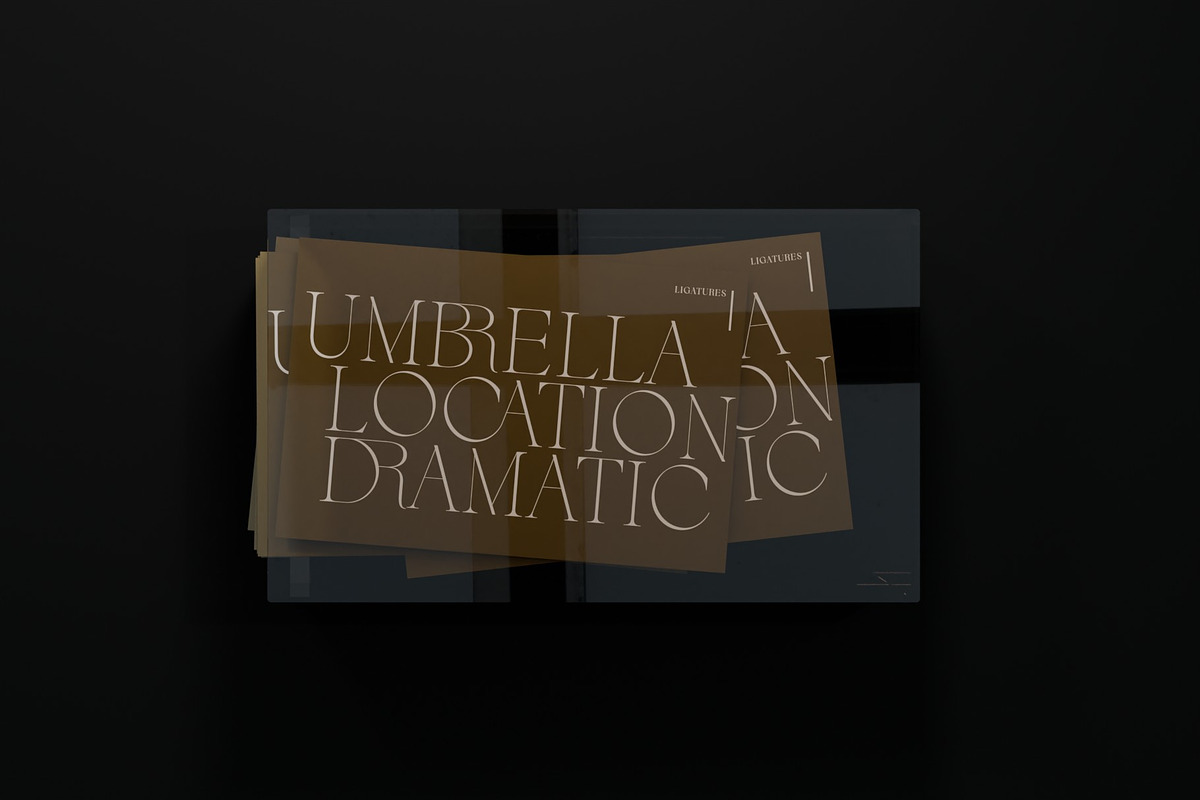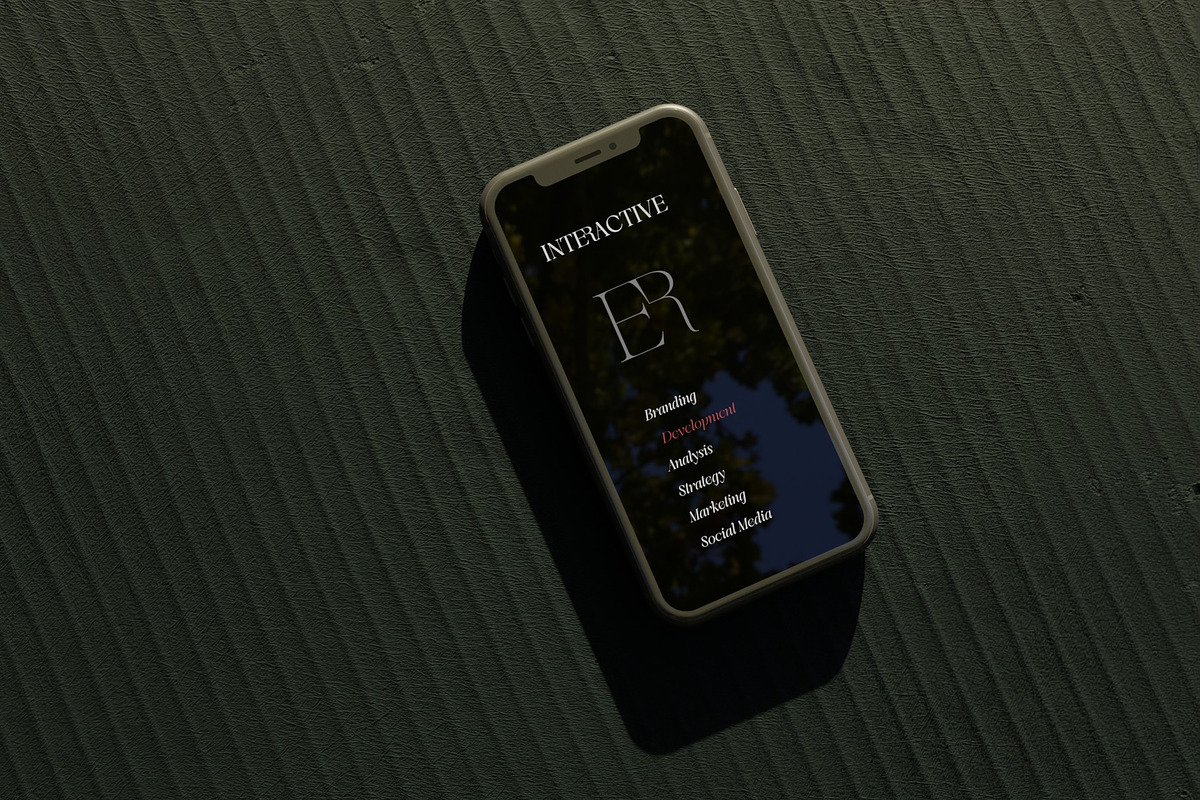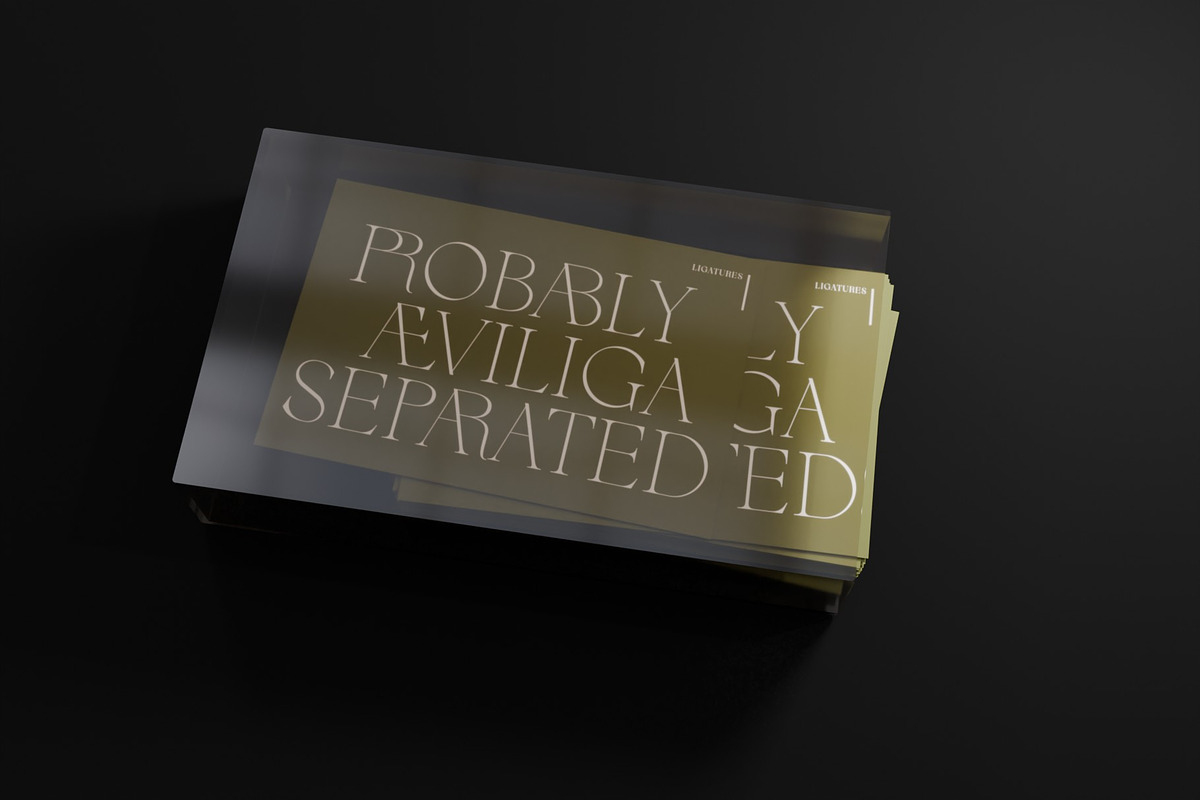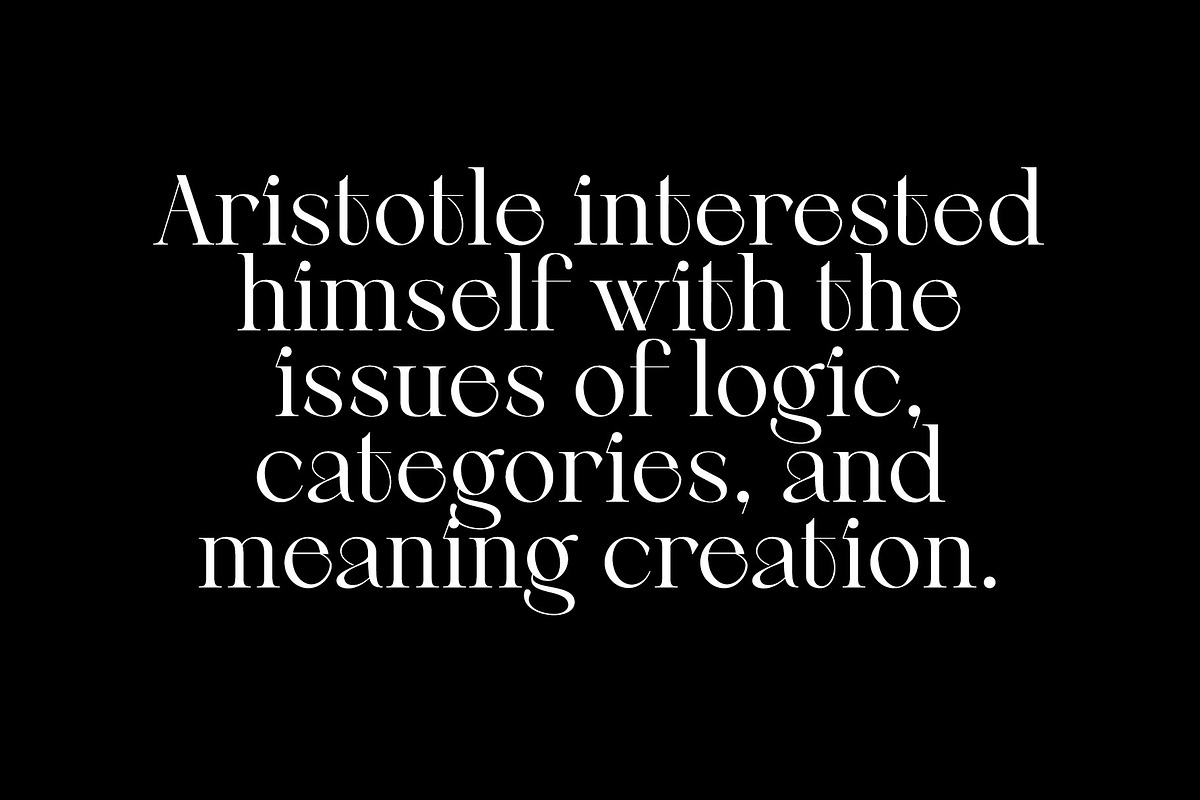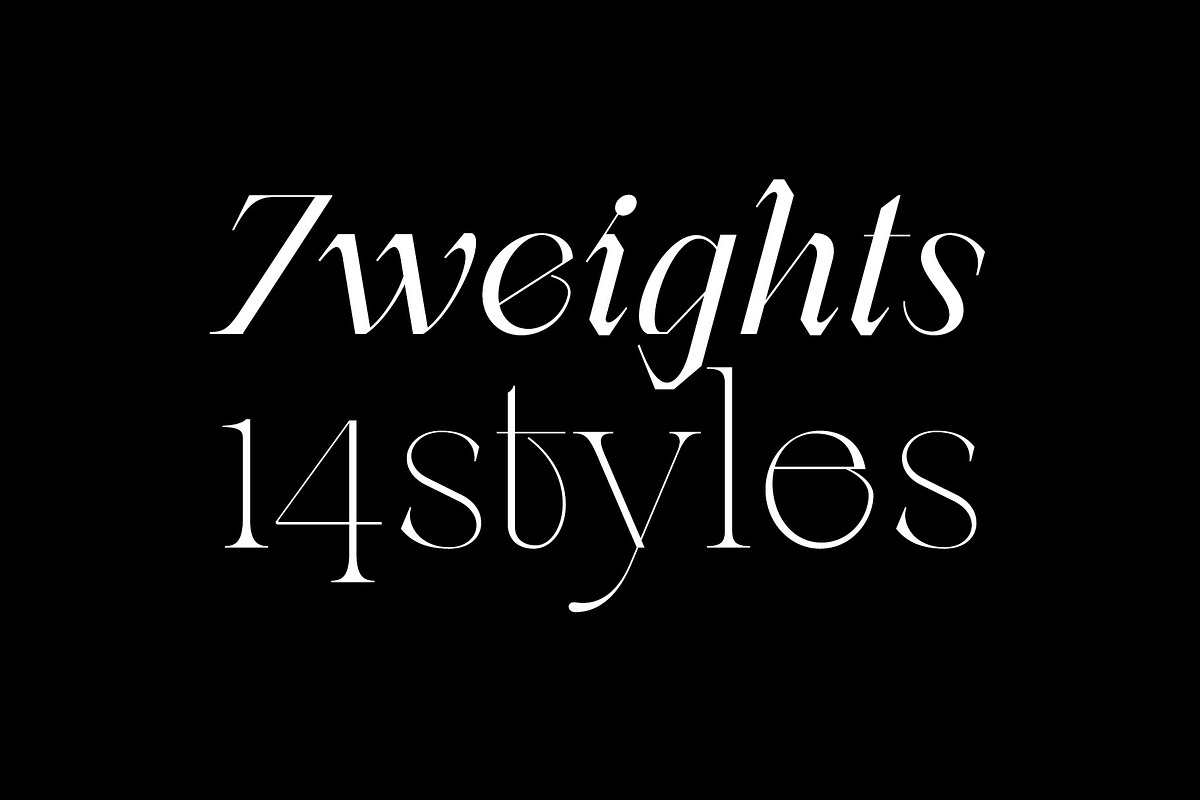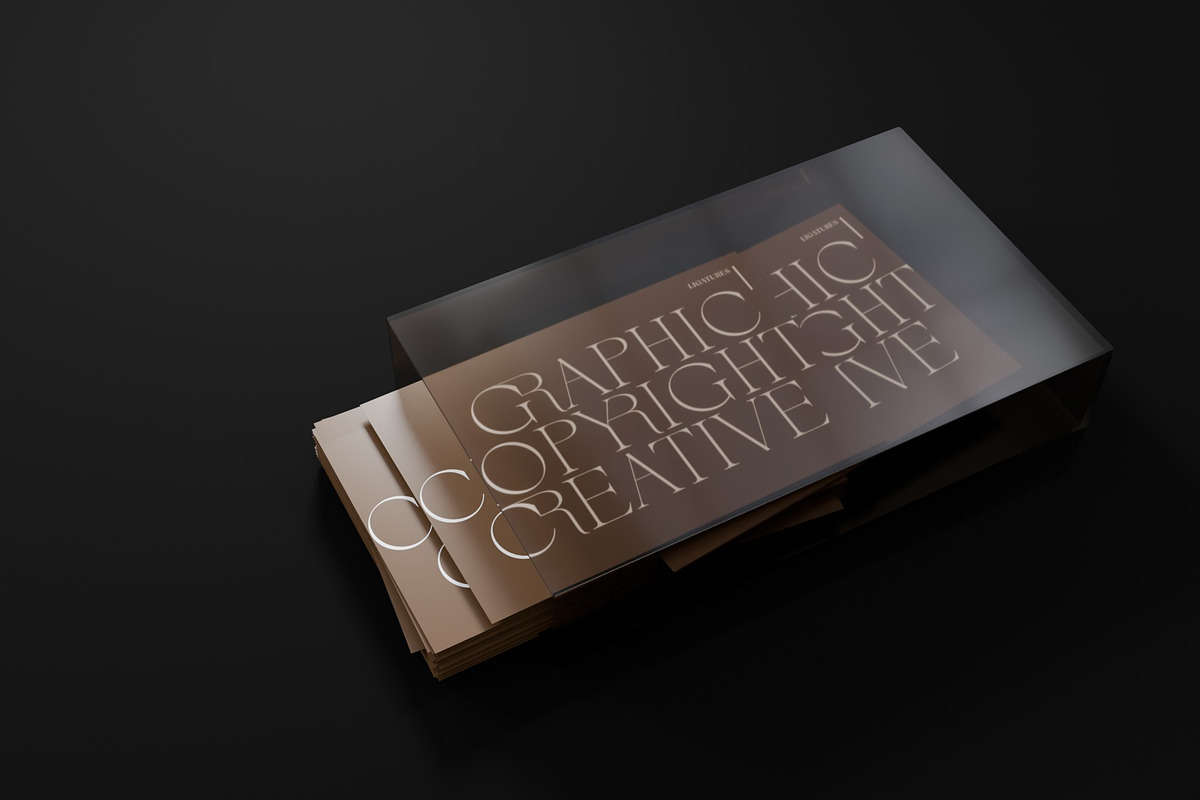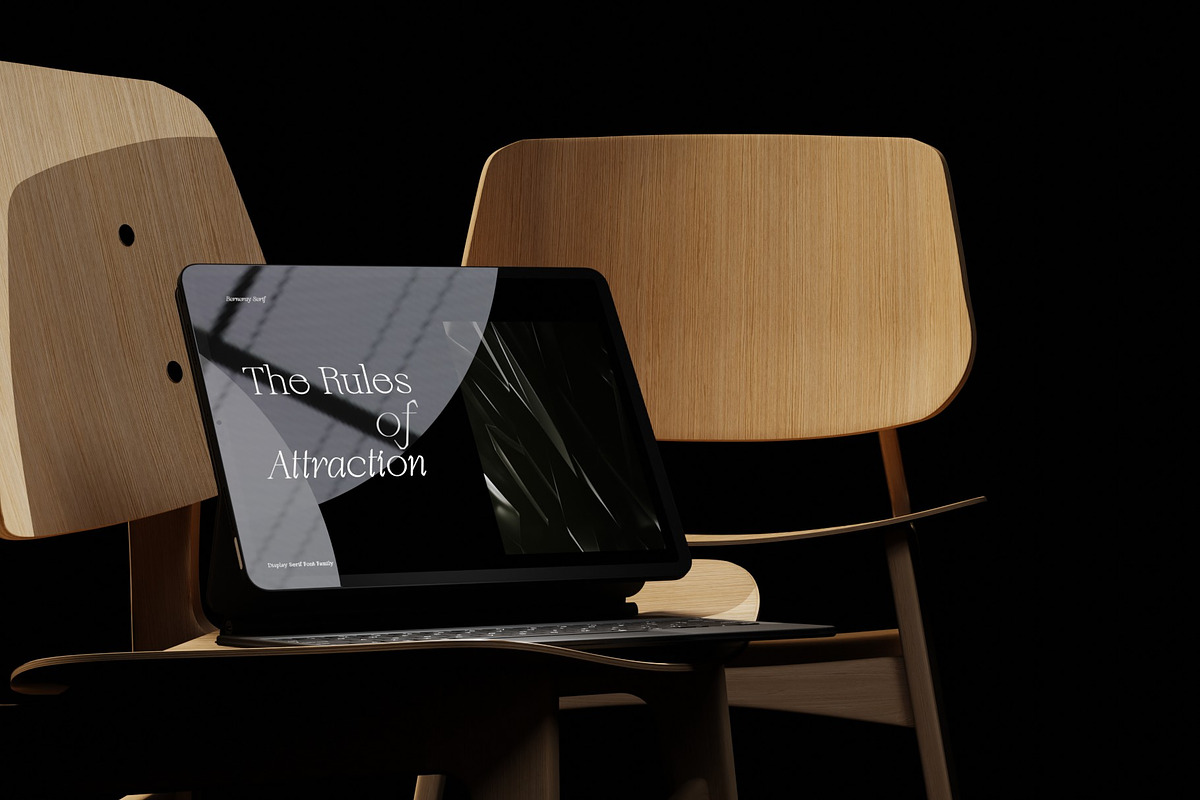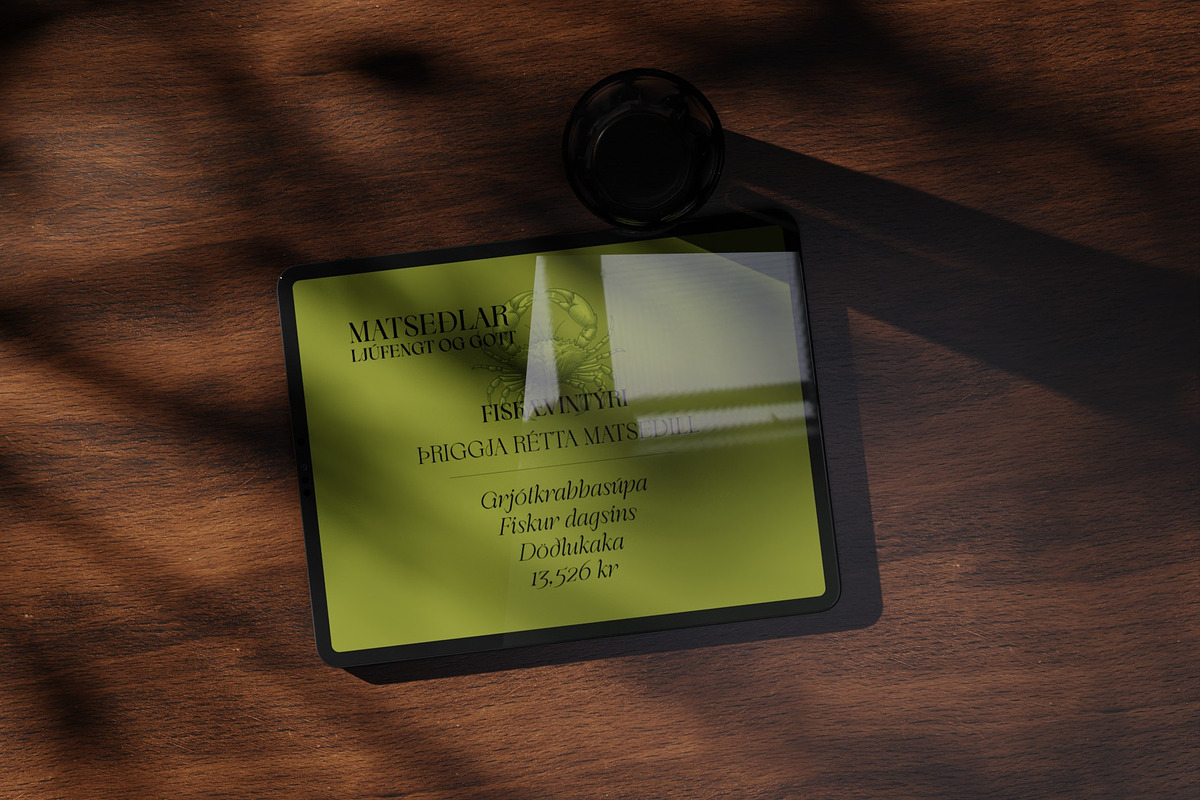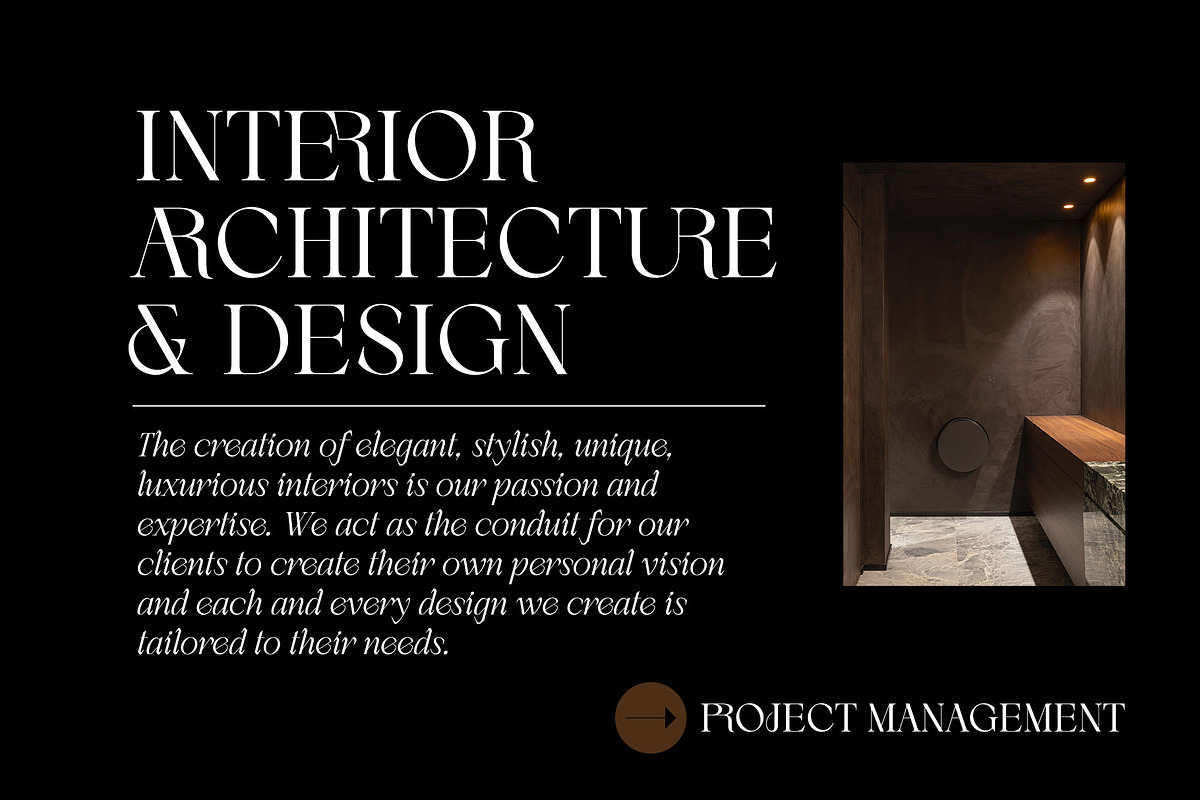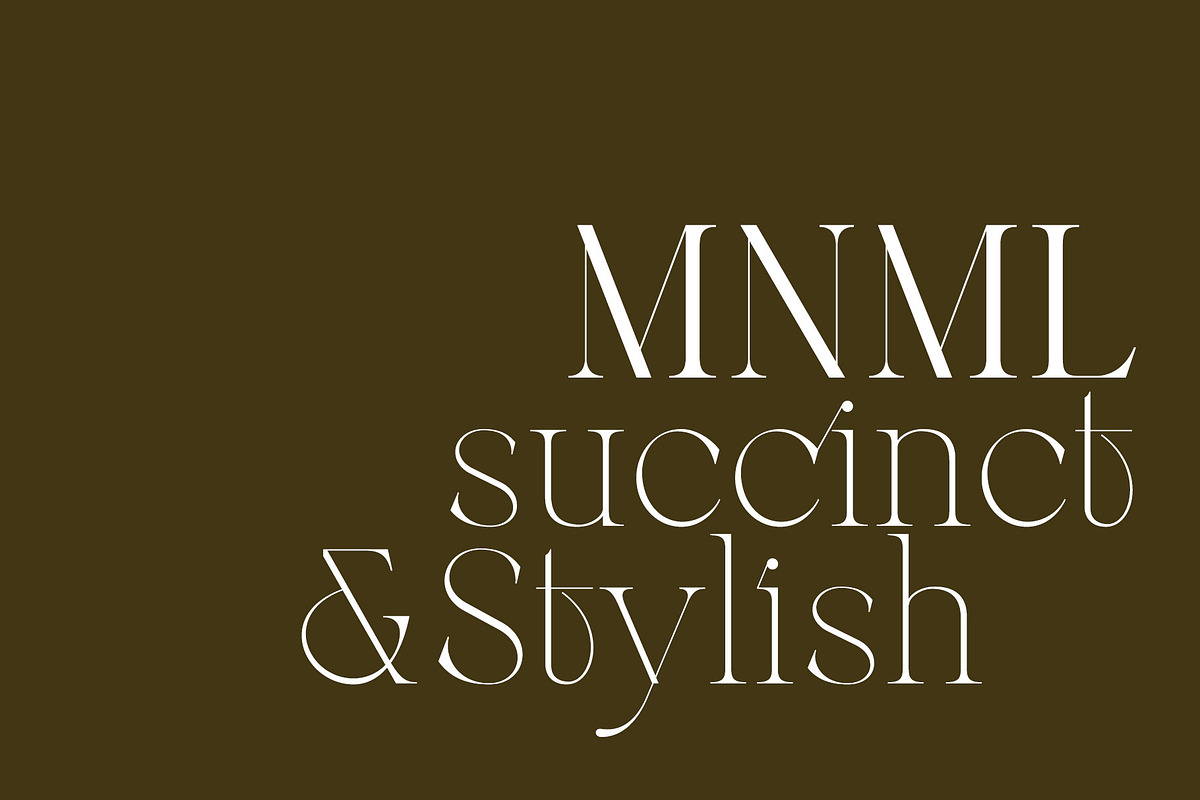
Berneray Serif Font Family
Berneray Serif Font Family. Introducing Berneray Serif Font Family for designers who need emotional lettering logos, title designs, and italic headlines with a strong impact. The unique delicacy of the Display Serif font provides an elegant sense of space, and through the heterogeneous contrast between the static and italic styles, it provides creators with a wider range of choices. And, please use the ligatures to design modern and understated typography. This ligatures must be valuable gifts.
The list of ligatures included in this font family is as follows:
- Standard Ligatures : ff, fi, fl.
- Discretionary Ligatures : AB, AR, BR, CA, CR, DR, ER, FR, GR, MR, NR, PR, SR, TR, UR, VR, XR, YR, ZR, ci, ri, si, wi, zi